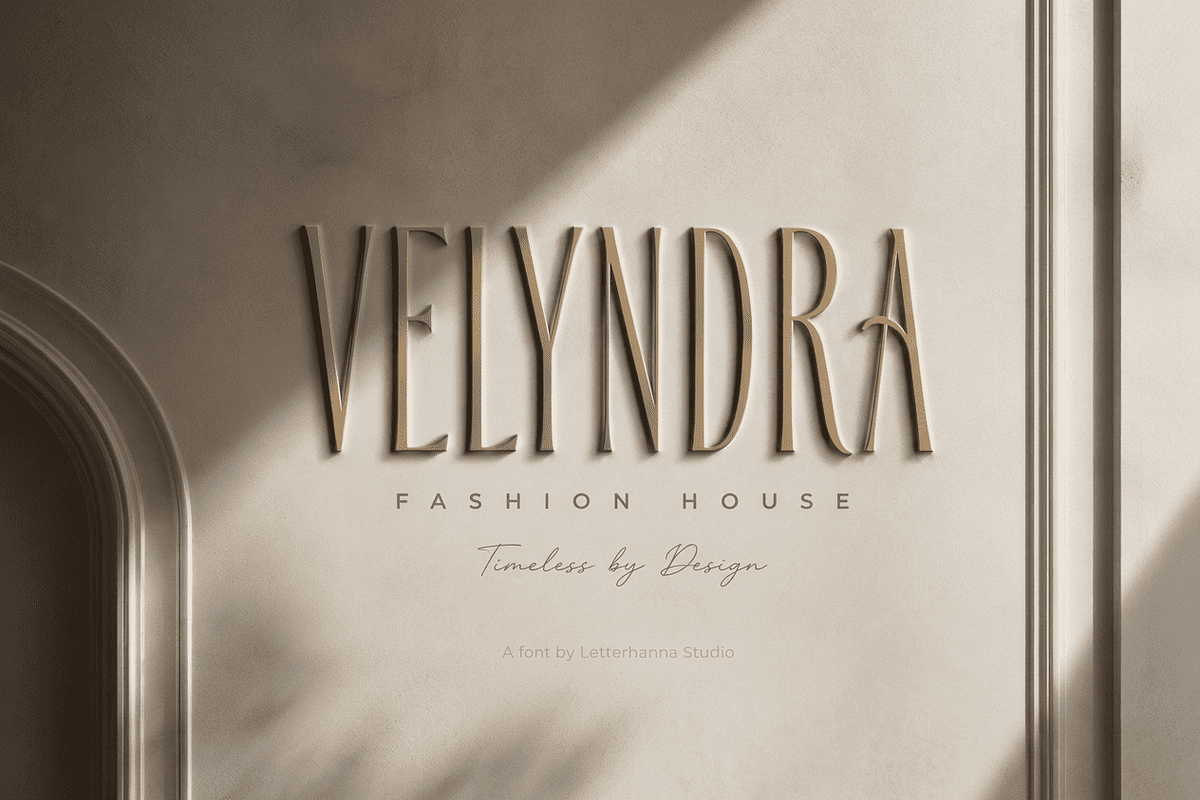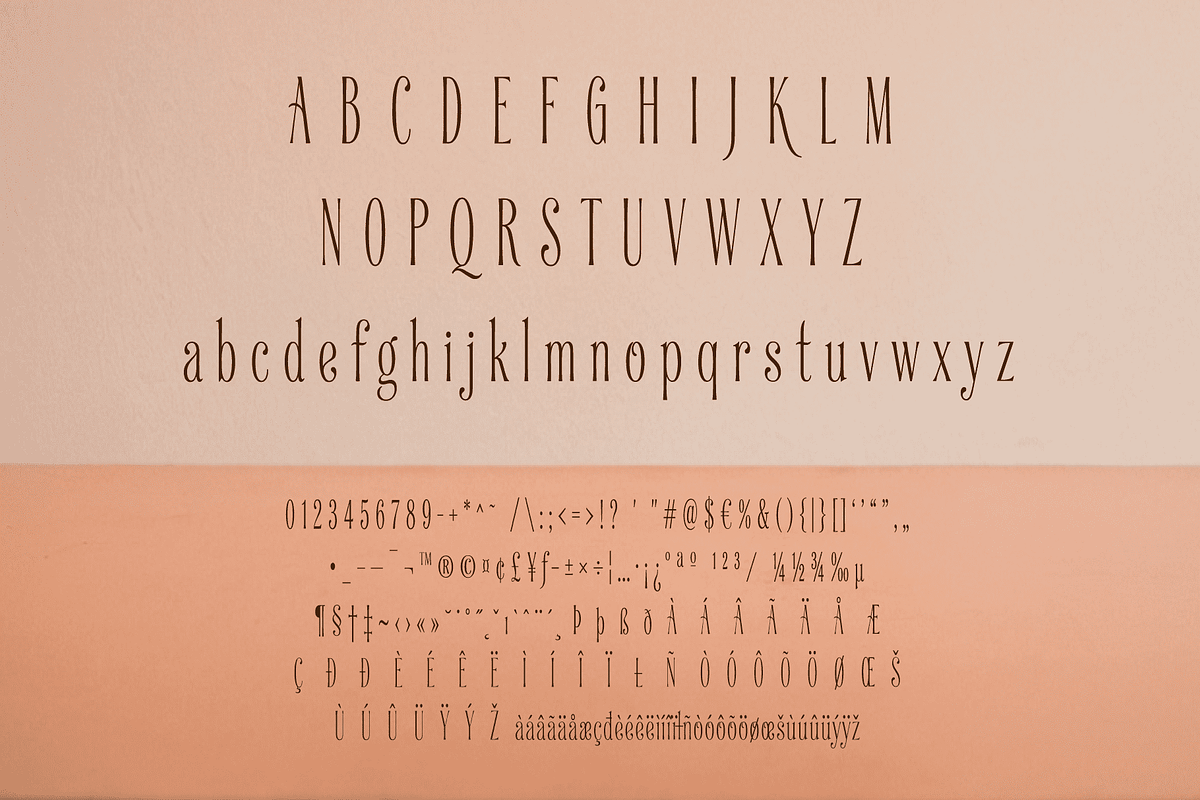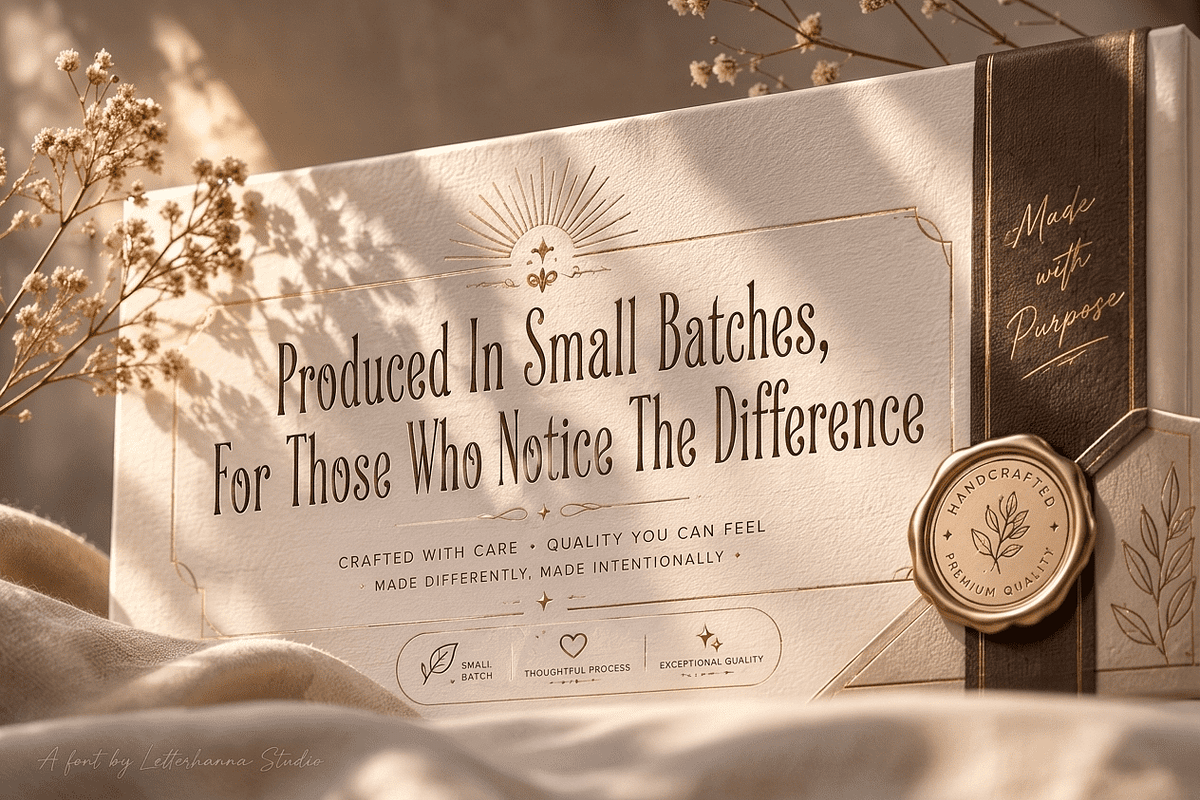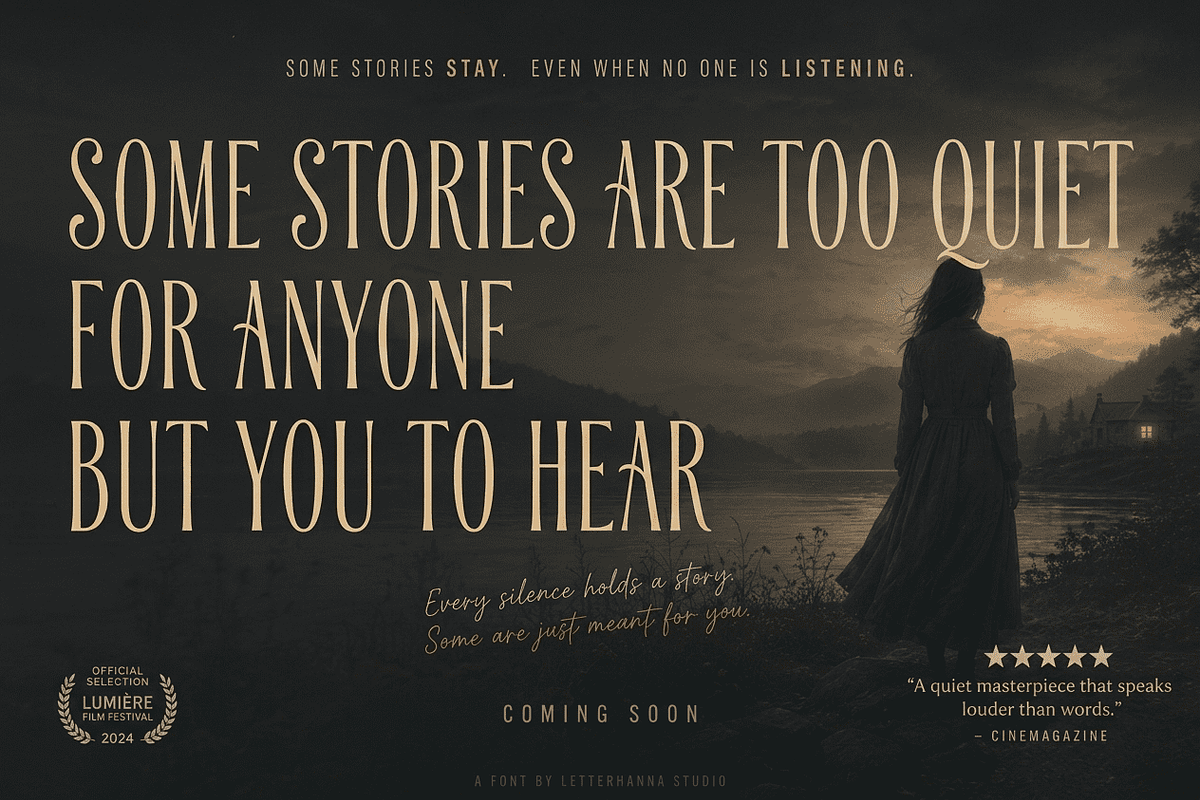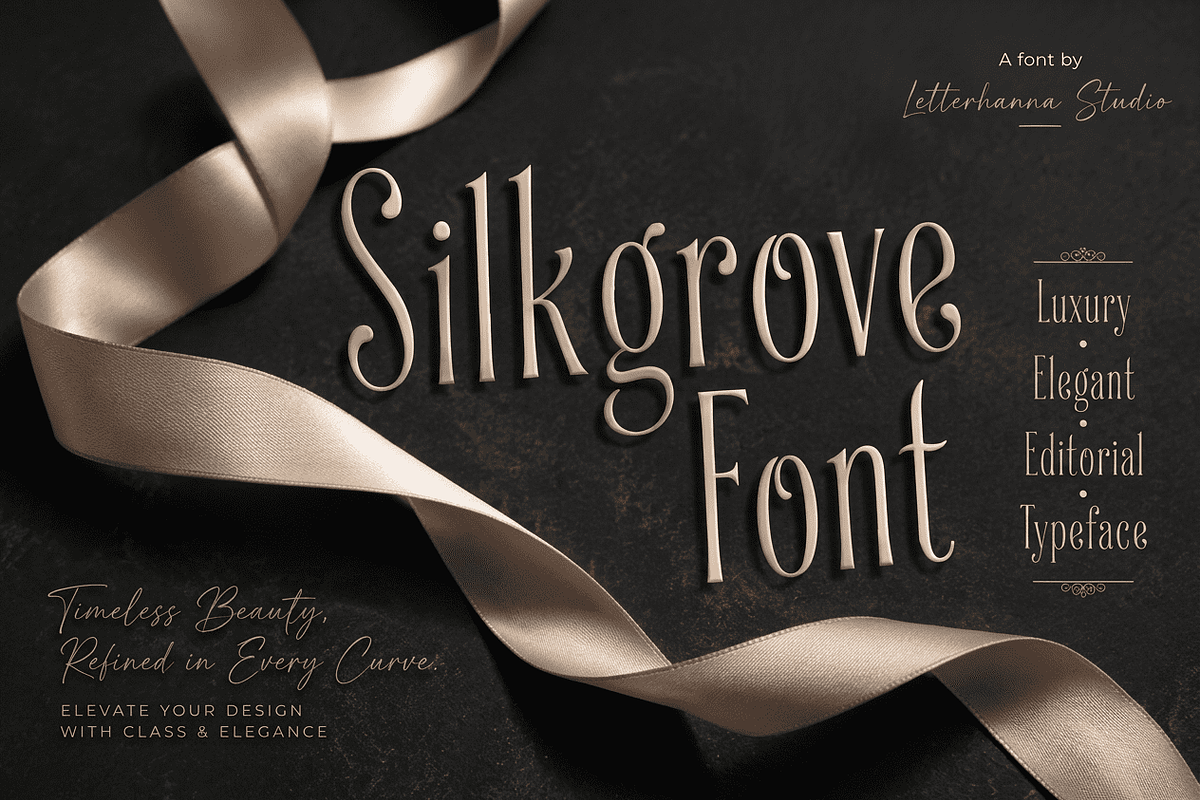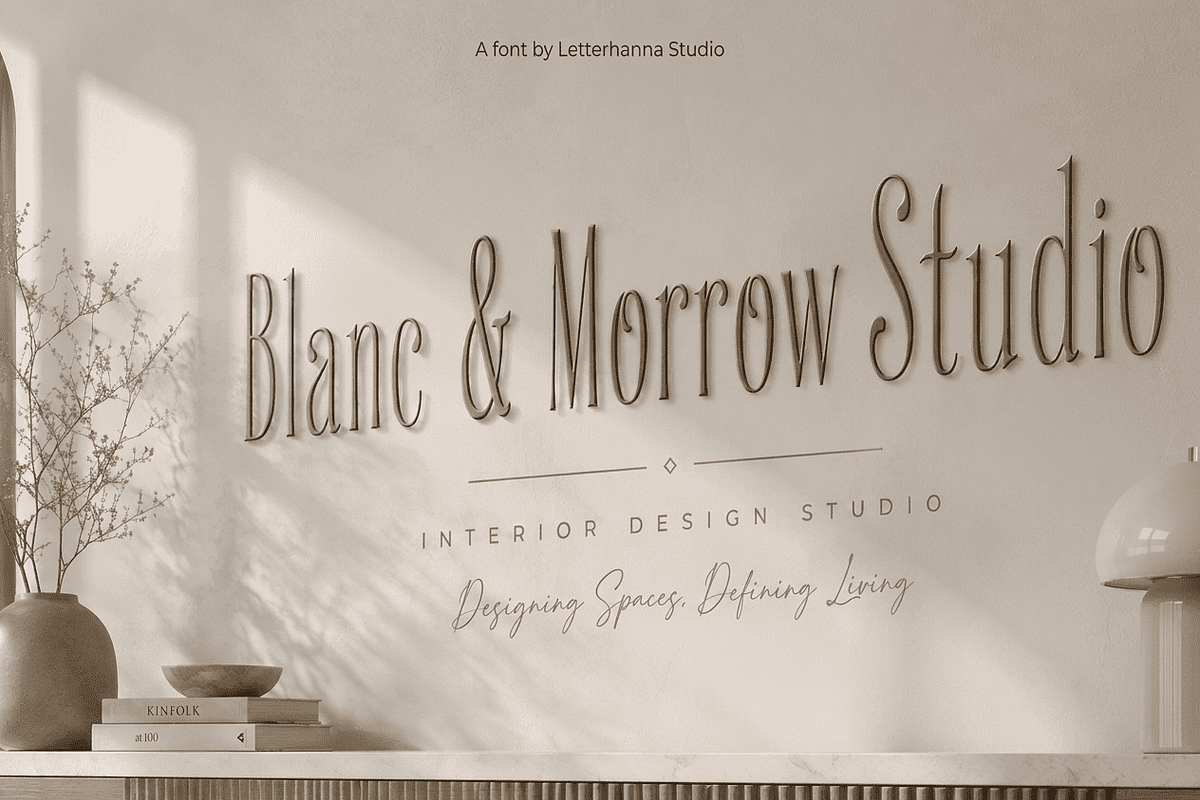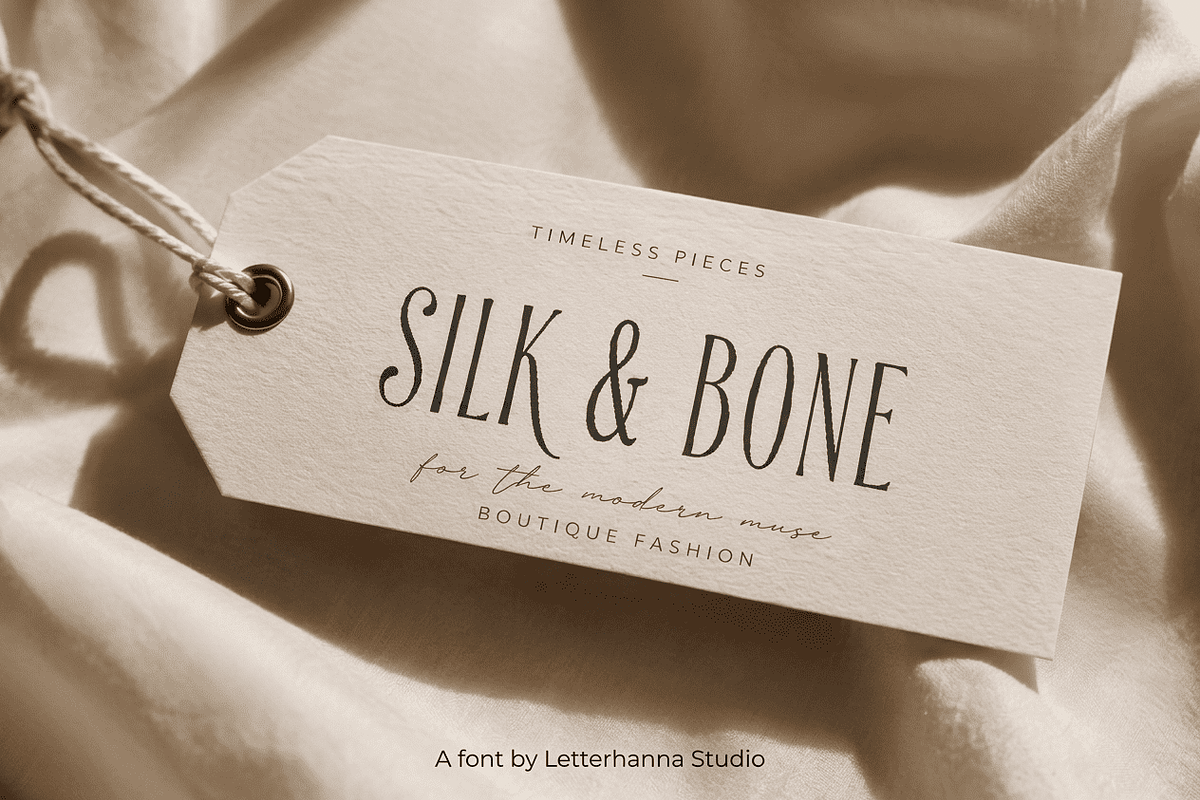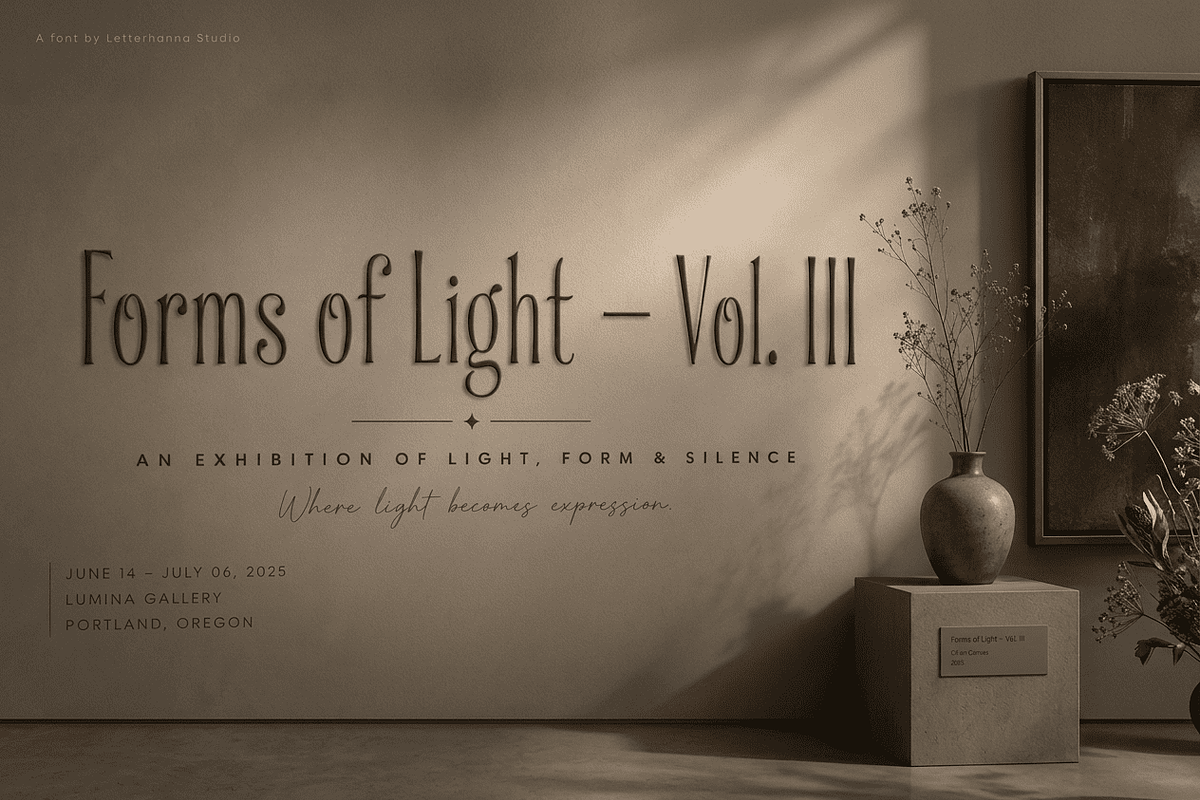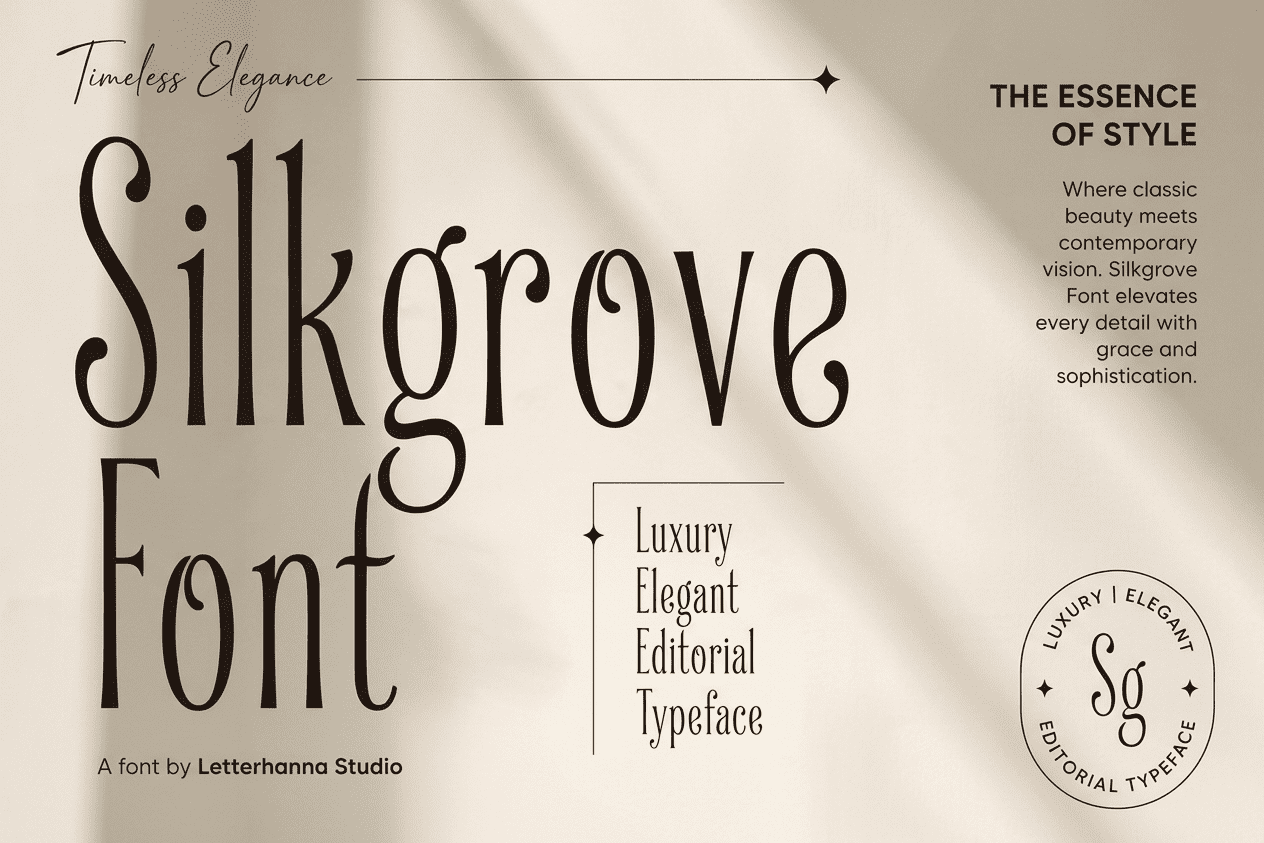
Silkgrove Font
Silkgrove is an ultra-condensed serif display typeface with strong vertical emphasis and elegant proportions. The letterforms feature thin, delicate strokes with subtle contrast between thick and thin, characteristic of a Modern serif influence. Terminals are gently curved and refined, while serifs are minimal and graceful — almost transitional in nature. The extreme condensed width gives it a towering, architectural quality. The overall construction is light in weight yet commanding in presence.
Inspired by the stillness of a silk grove at dawn — where light filters through thin leaves in long, vertical threads — Silkgrove was designed to carry weight without heaviness. To command without shouting. Its ultra-condensed silhouette rises like tall trees standing close together, each letterform a trunk of quiet confidence, spaced just enough to breathe.
The strokes are thin, almost fragile, yet they hold their ground with remarkable poise. A whisper of Didone DNA runs through every curve — the subtle contrast between hairline thins and slightly fuller verticals gives Silkgrove its signature tension. Not loud. Not decorative. Just precise. The terminals curve inward like leaves folding at dusk, and the serifs are barely there — ghost-light anchors that ground each letter without interrupting its upward reach.
This is a font for those who understand that restraint is its own kind of power.
Silkgrove speaks to editorial designers, luxury brand builders, wedding stationers, and anyone who has ever looked at a blank page and wanted it to feel like a gallery wall. It belongs on perfume packaging, poetry collections, high-fashion lookbooks, minimalist café menus, and film title sequences that begin in silence.
If you've been searching for a typeface that makes your audience lean in rather than look away — Silkgrove is your answer.